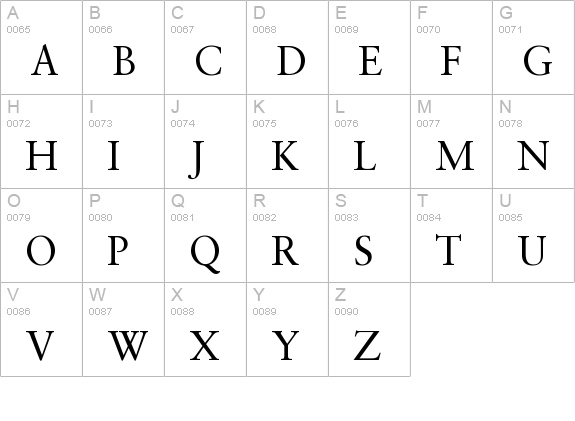
Garamond Retrospective SSi Font Details
Garamond Retrospective SSi font is a timeless typeface that exudes elegance and sophistication. Inspired by the classic Garamond font, it captures the essence of traditional typography with a modern twist. Its sleek and slender letterforms effortlessly convey a sense of grace and refinement. This font is perfect for any project that requires a touch of sophistication, whether it be for a wedding invitation, a book cover, or a high-end branding campaign. Its versatile nature allows it to seamlessly integrate into various design styles, making it a go-to choice for both professional designers and enthusiasts alike. One of the most remarkable aspects of Garamond Retrospective SSi font is that it is freely available to download at FontsMarket.com. This means that anyone can easily access this beautiful typeface without any cost. The ability to obtain such a high-quality font for free is truly a gift for designers and creatives who are looking to enhance their projects without breaking the bank. With its timeless appeal and the convenience of being freely available, Garamond Retrospective SSi font is a must-have in every designer's toolkit. Its versatility, elegance, and accessibility make it an invaluable asset for any creative endeavor. So why wait? Head over to FontsMarket.com and download this exquisite font today to elevate your designs to new heights.